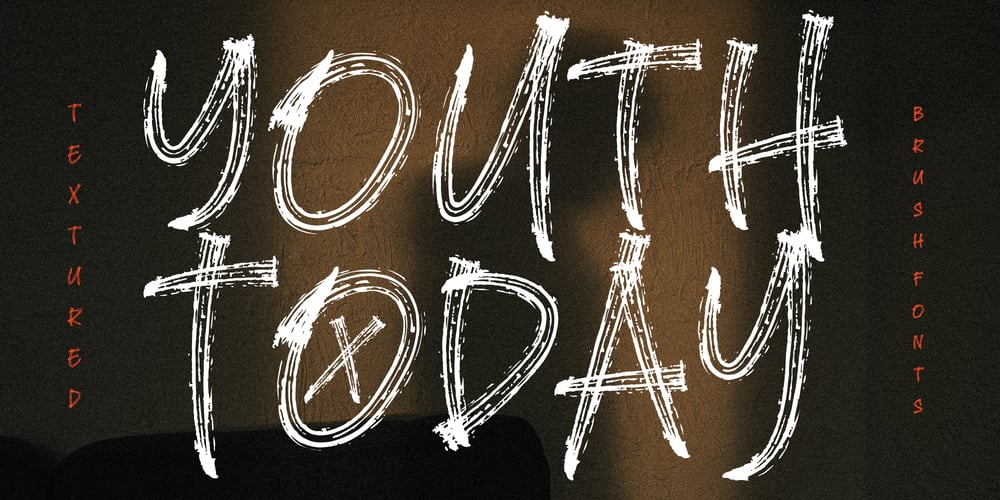
Youth Today
Youth Today font
Youth Today Font Family was designed by Stefie Justprince and published by Crumphand. Youth Today contains 1 styles and family package options. hello, Introducing the new textured brush fonts Youth Today is textured brush (Transparency) fonts.easy to read, easy to access opentype, good kerning, strong.what’s included inside the fonts ? Uppercase Lowercase Numerals Symbols Stylistic Set 1 Stylistic Set 2 Standart Ligature European Multilingual Thank You, Regards!